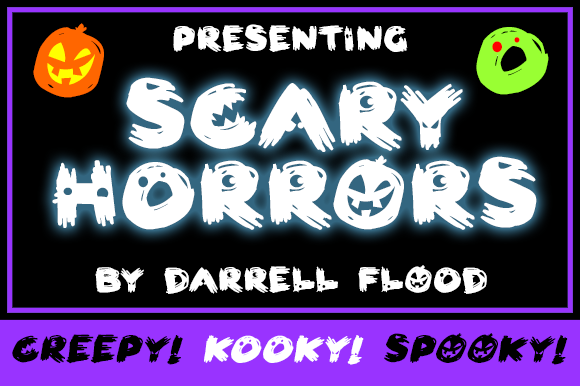
In the realm of horror storytelling, fonts play a pivotal role in weaving an eerie spell that captivates readers. Brace yourself for Scary Horrors Font, a spine-chilling decorative font that will send shivers down your spine. Conceived by the imaginative mind of Dadiomouse, this font is a masterful creation, featuring an array of lurking monster faces cleverly concealed within its letterforms.
As the letters dance before your eyes, you'll discover a hidden world of ghoulish creatures, each one unique and unsettling. The Scary Horrors Font is a visual symphony of fear, perfectly suited for Halloween-themed projects or any setting where a touch of horror is desired.
Whether you're crafting haunting invitations for a masquerade ball or conjuring up chilling tales for a campfire, Scary Horrors Font will unleash your creativity like never before. It's the ideal choice for authors seeking to infuse their horror stories with an extra dose of terror, and for designers wishing to evoke an atmosphere of dread in their Halloween-inspired creations.
With its intricate details and unsettling aura, Scary Horrors Font transcends the ordinary, becoming a font that tells a tale of its own. Dare to embrace the darkness and let your imagination run wild. Download Scary Horrors Font today and embark on a journey into the realm of the macabre.